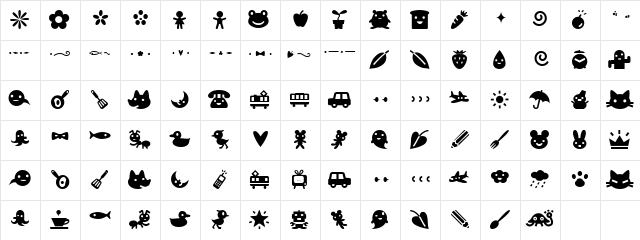
Efon Regular Free Font
Efon Regular
Design Context for Efon
Efon is a composed and adaptable typeface that performs quietly and consistently across a wide range of design contexts.